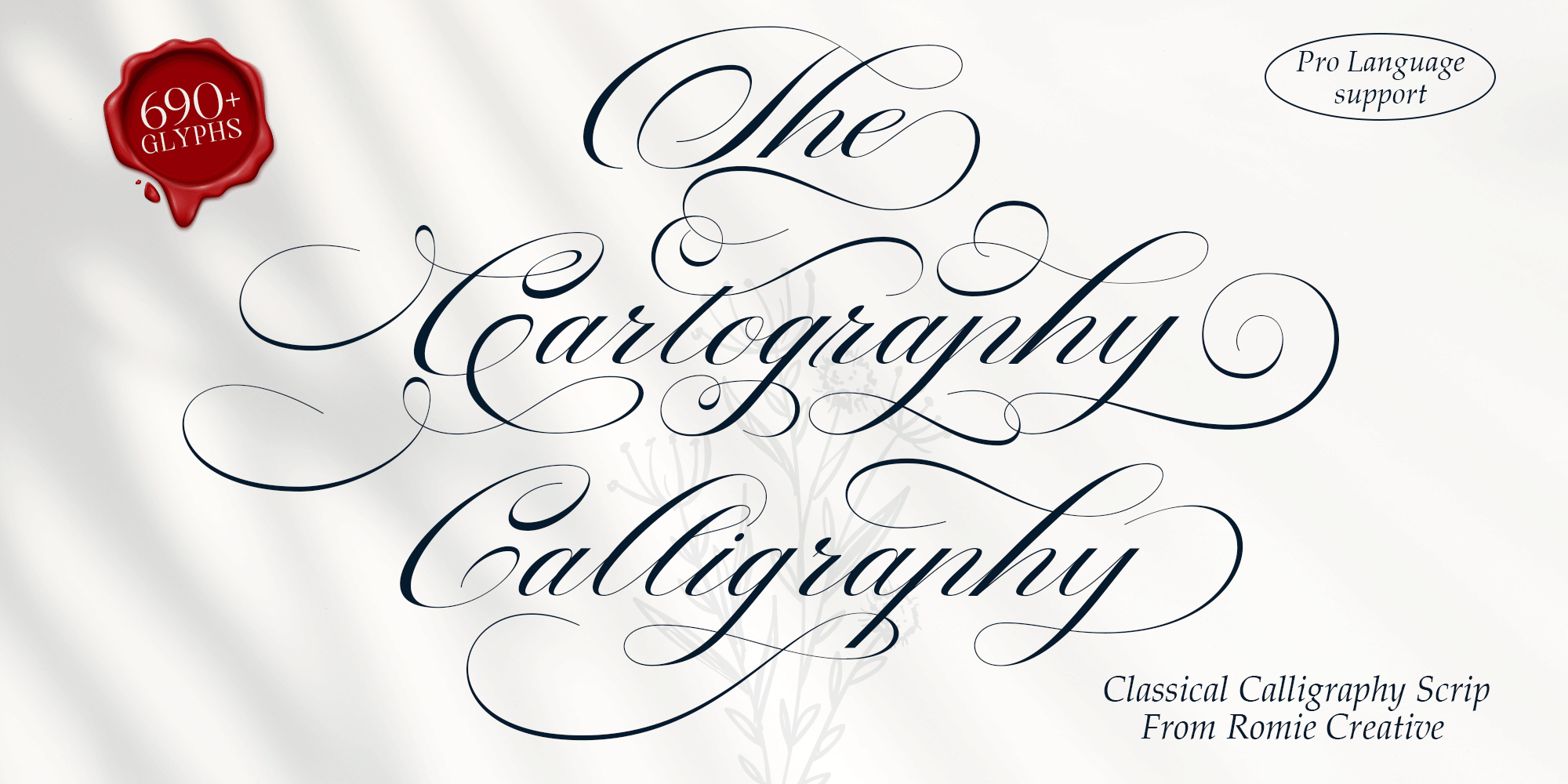
Discover the exquisite The Cartography Calligraphy Font Free Download, a classic script typeface by Romie Creative that blends elegant copperplate style with modern sophistication. This font is perfect for creating a glamorous, feminine aesthetic. However, please note that you must purchase this font for commercial use. For testing purposes, you can download it for free and explore its stylish charm.
The The Cartography Calligraphy Font is ideal for various applications, such as designing luxurious wedding invitations, crafting elegant logos, creating refined restaurant menus, or adding a sensual touch to fashion branding and packaging. Its versatility, with PUA-encoded glyphs and fancy letter connections, makes it a top choice for projects that demand a clean, readable, and decorative look.
Why is The Cartography Calligraphy Font Free Download so exciting? Its smooth, flowing characters and numerous stylistic alternates offer a perfect blend of classic calligraphy and contemporary flair. This font’s glamorous design ensures your projects stand out with effortless elegance, ideal for formal and creative applications like novels, magazines, and greeting cards.
The The Cartography Calligraphy Font family includes a single style with extensive glyph variations, providing flexibility for diverse design needs. Its rich set of alternates and ligatures allows for creative customization, perfect for both print and digital media.